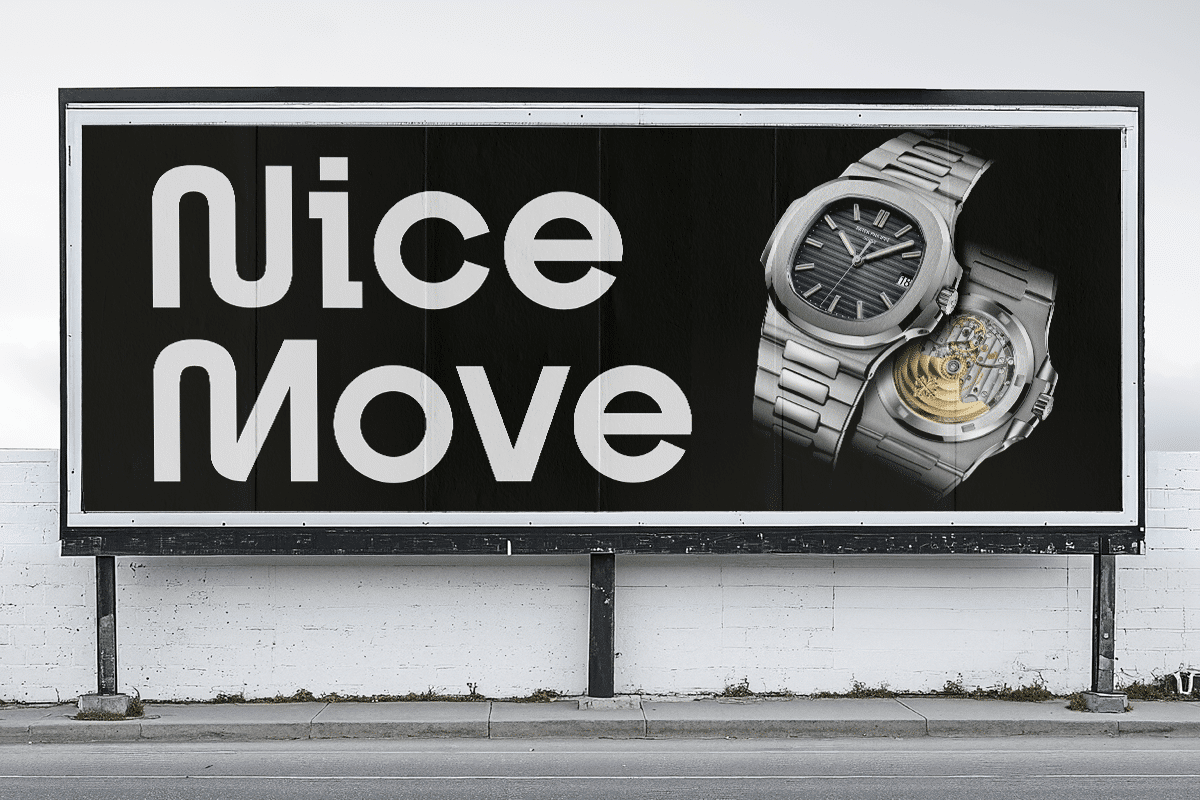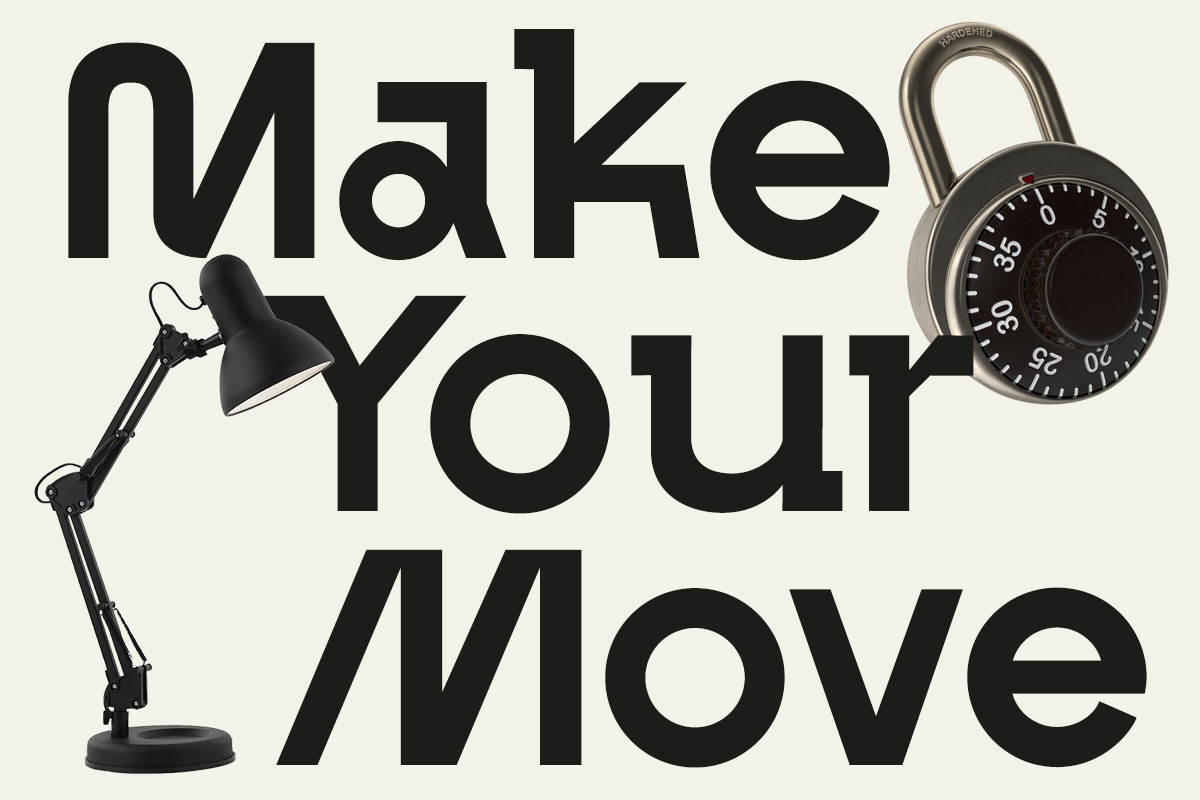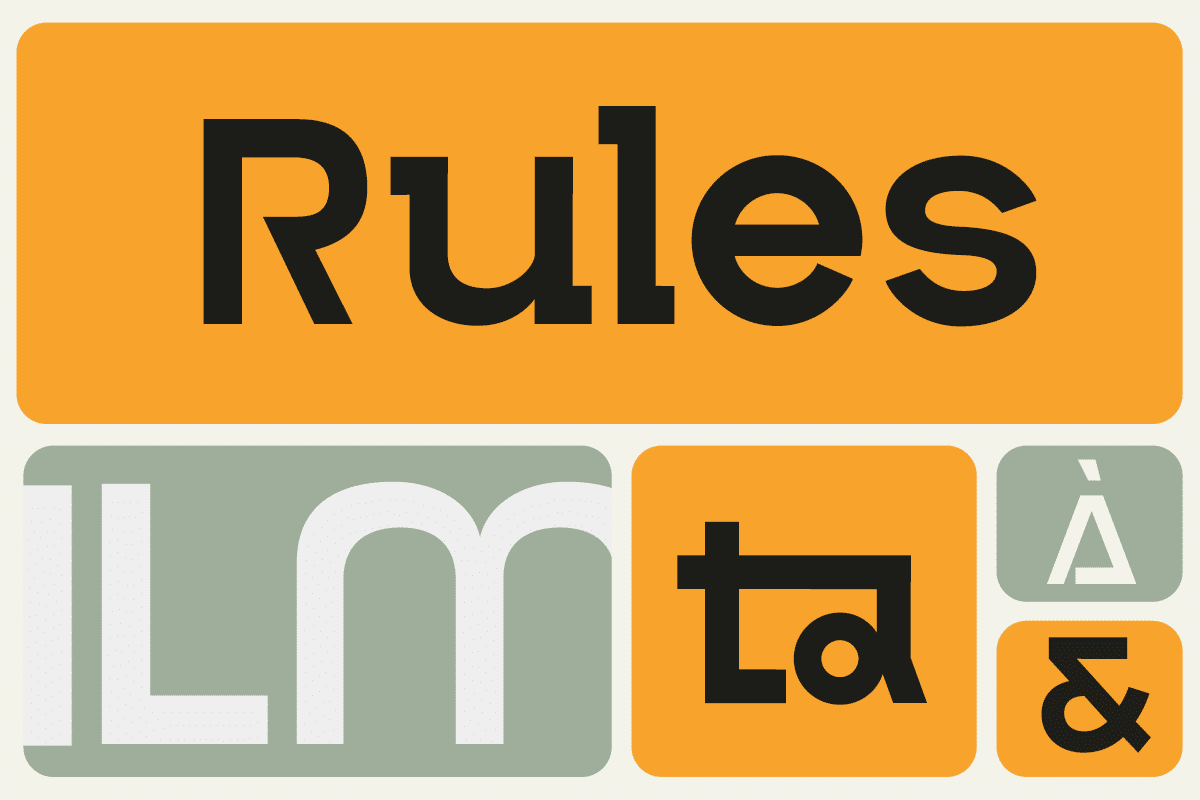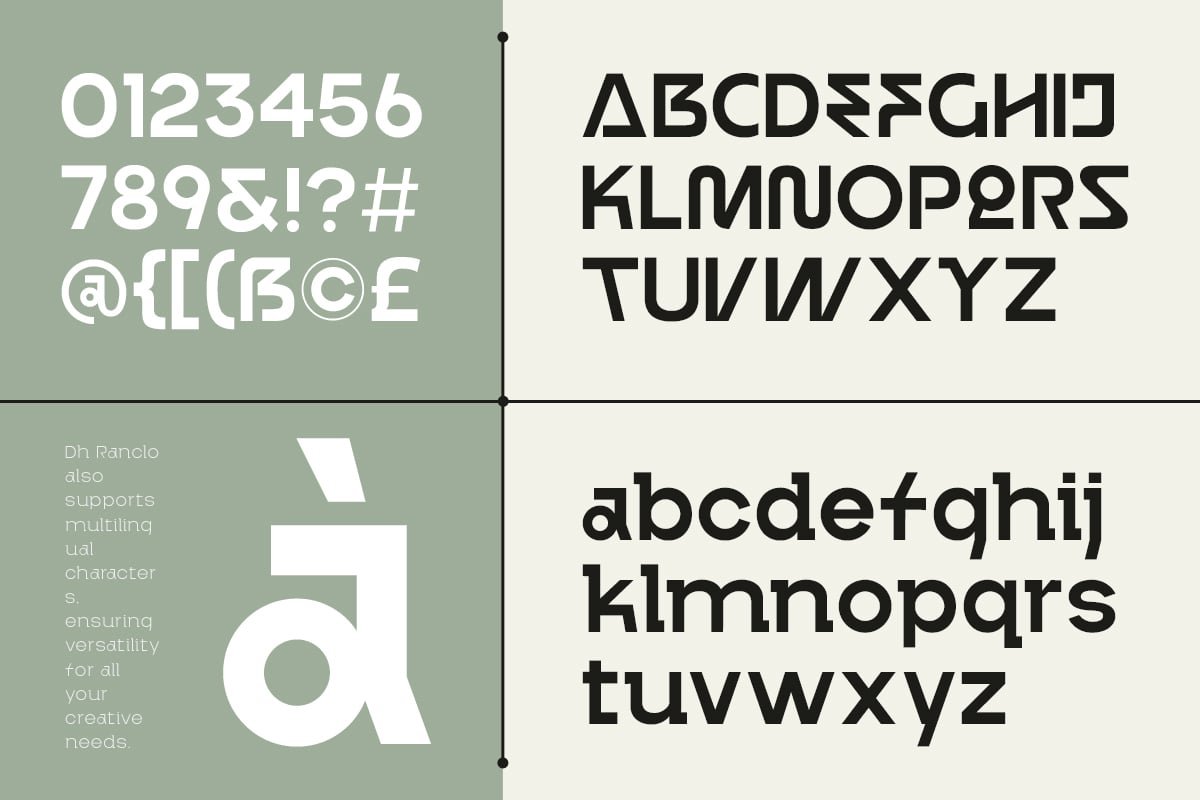
Ranclo is a modern display typeface designed for high-end branding and professional design projects. With its clean, geometric letterforms and refined construction, this font blends contemporary minimalism with bold functionality—ideal for brands that value clarity, precision, and modern aesthetics.
This version includes the Medium style, offering a slightly stronger presence than the Regular weight—perfect for headlines, logos, web design, and bold typographic statements. Ranclo Medium is both readable and stylish, delivering a crisp, modern look with effortless balance.
Enhanced with 32 unique alternates and ligatures, this font gives designers full control to add creative flair while maintaining a clean, professional finish. Whether for corporate branding, packaging, or digital content, Ranclo Medium adapts with versatility and impact.
- 32+ Alternates & Ligatures for creative flexibility
- Multilingual Support: Covers multiple global languages